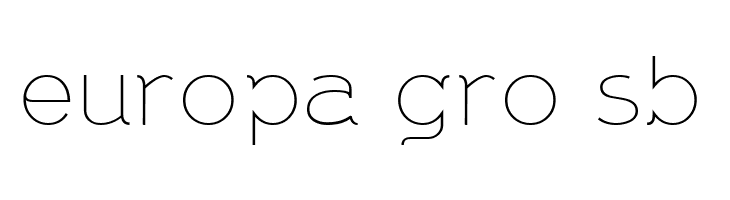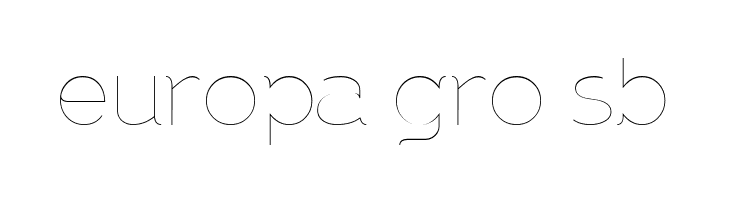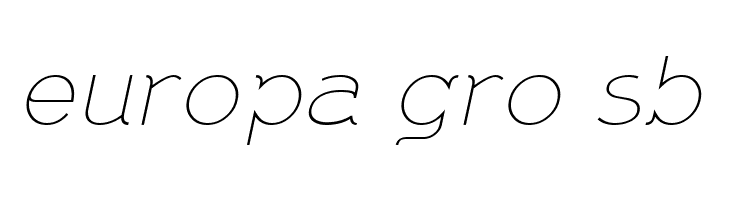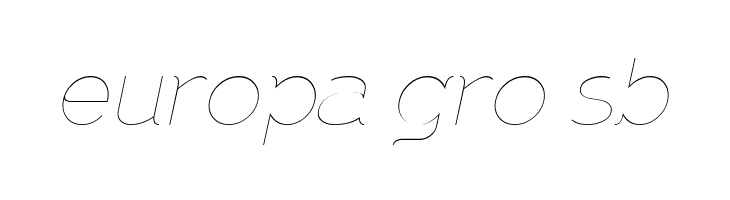
DNNR Light Font
A sleek, minimalist font with thin lines and a modern aesthetic.
DNNR Medium Font
A modern, minimalist sans-serif font with geometric lines and consistent stroke width.
DNNR LightItalic Font
A sleek, modern, and light italic font with thin strokes and a dynamic appearance.
DNNR MediumItalic Font
A sleek, modern italic font with smooth, continuous lines and excellent readability.